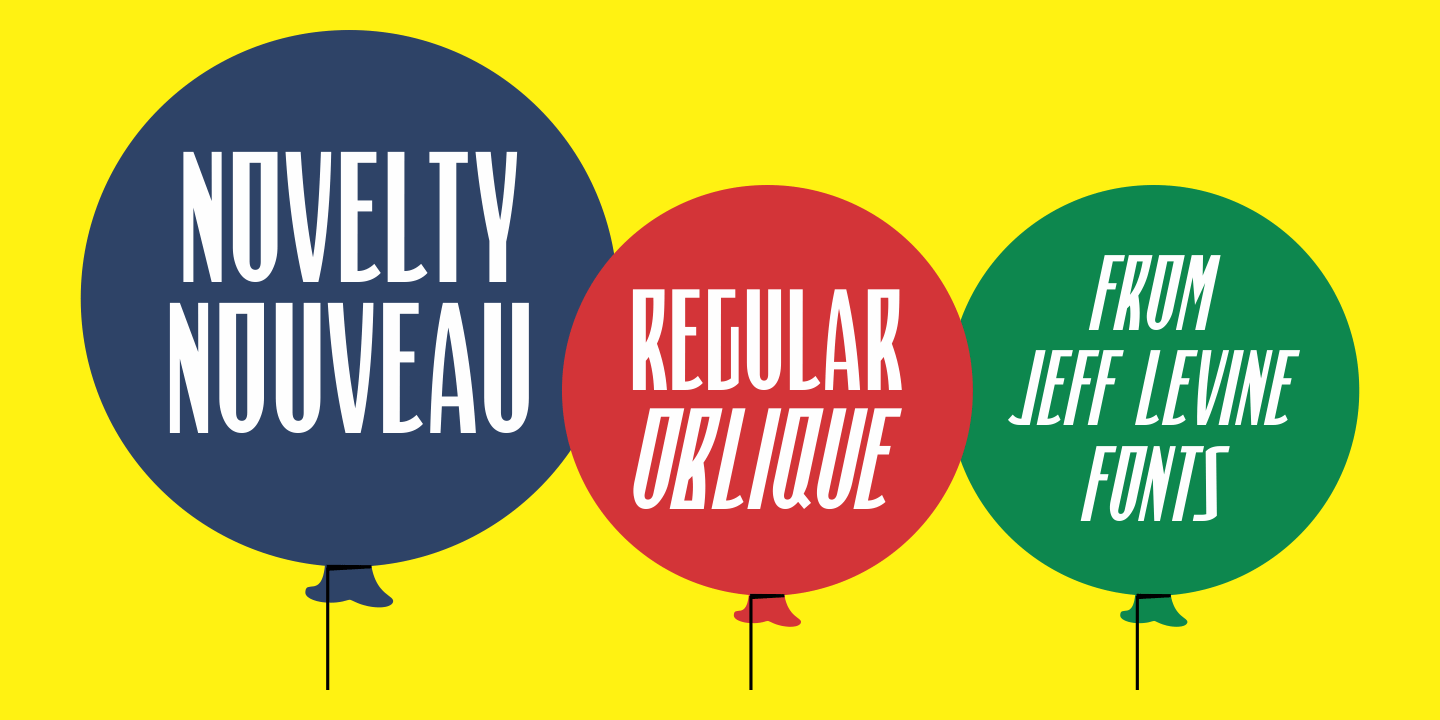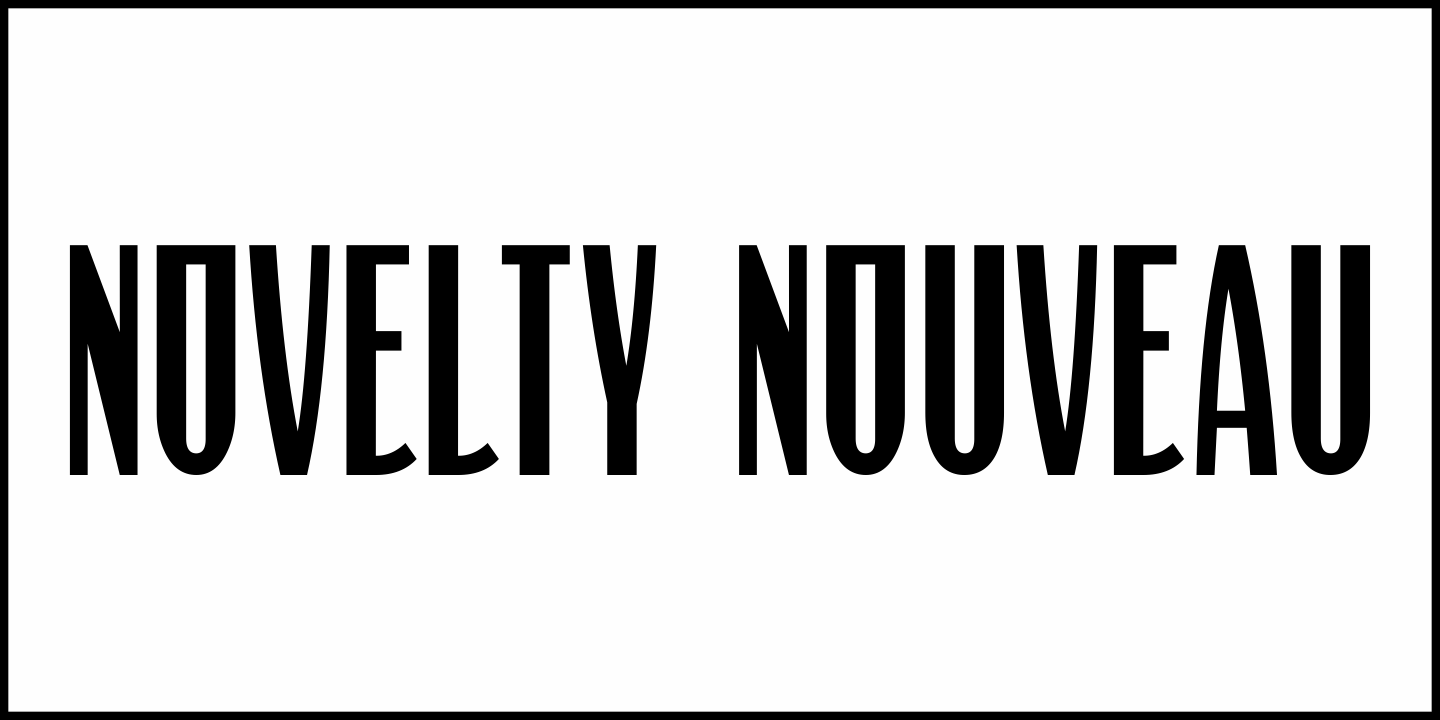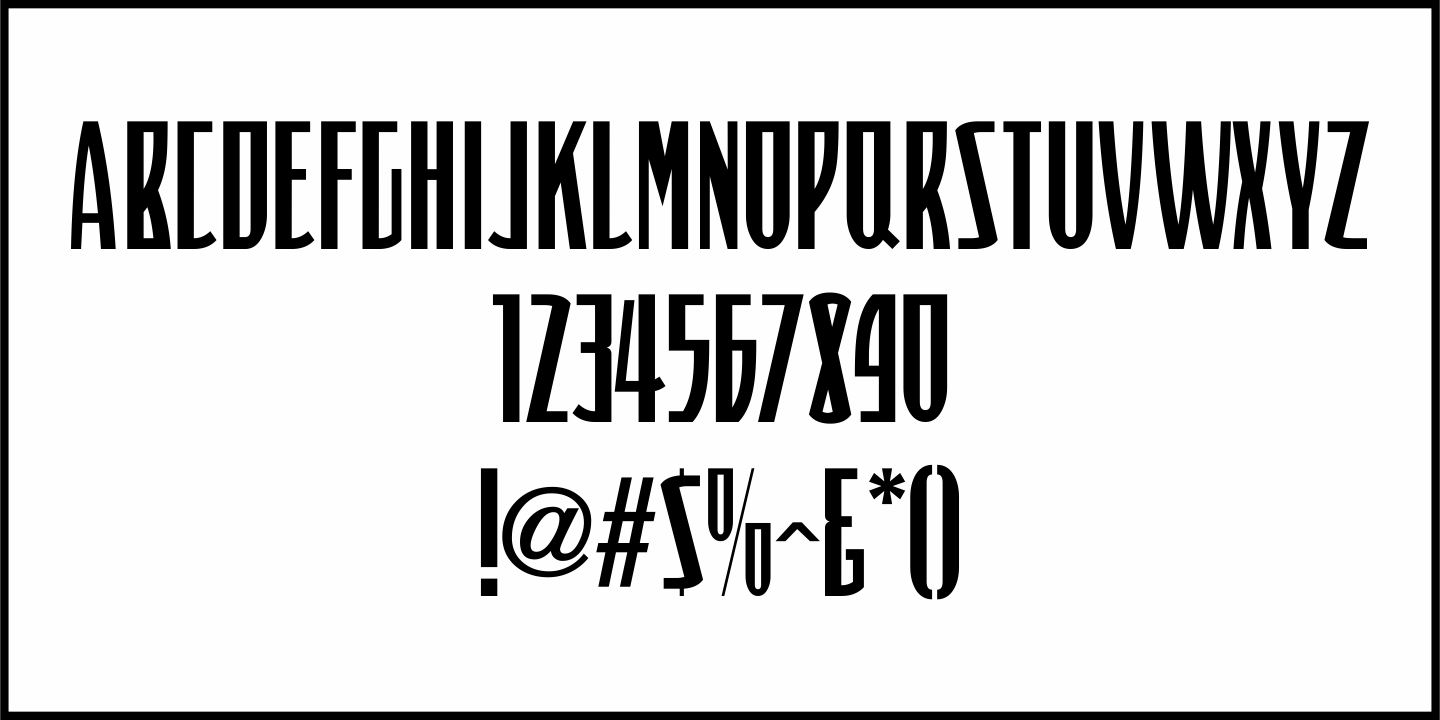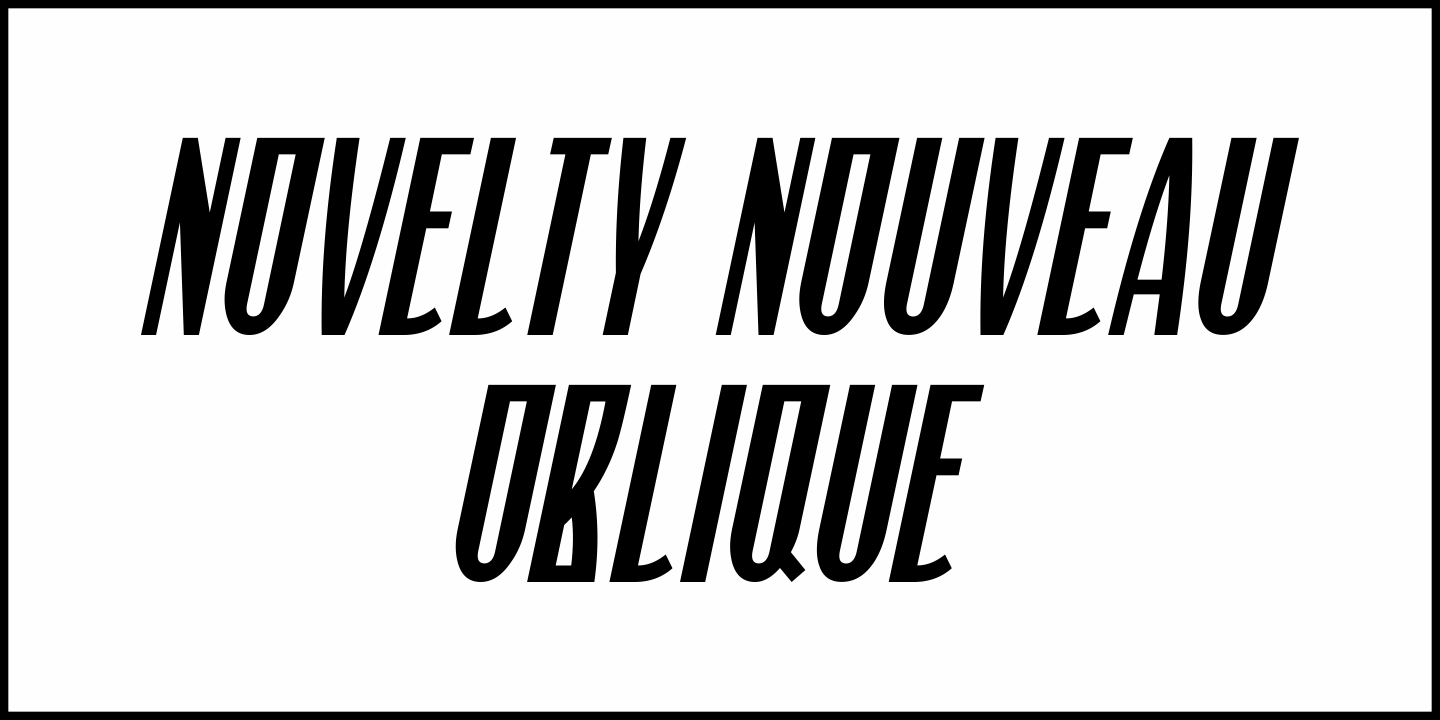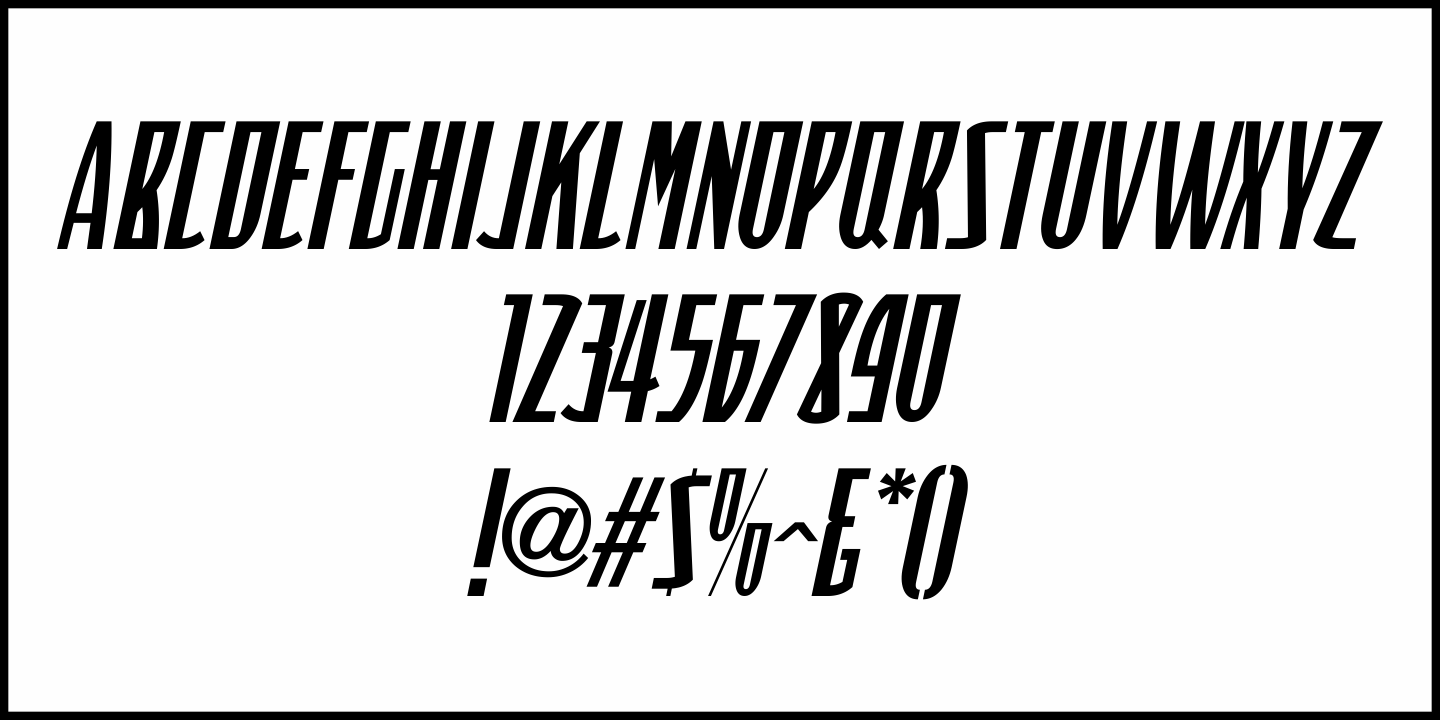
Novelty Nouveau
Novelty Nouveau JNL gets its name from its source of inspiration – the cover of a 1919 piece of sheet music for the novelty tune 'America Never Took Water (And America Never Will)”
This Art Nouveau condensed sans serif type design is available in both regular and oblique versions.
Novelty Nouveau JNL Regular by Jeff Levine Fonts